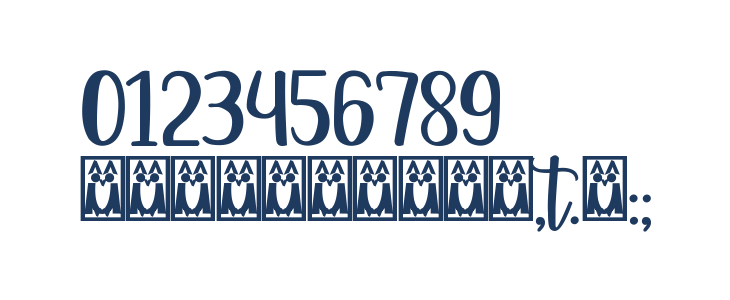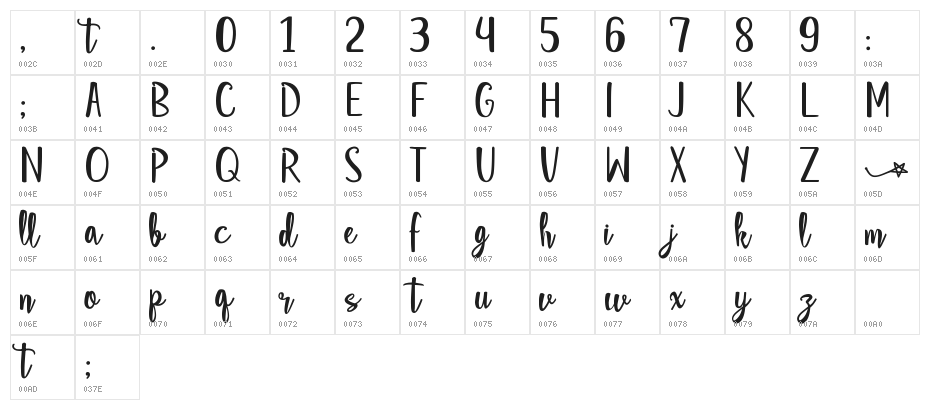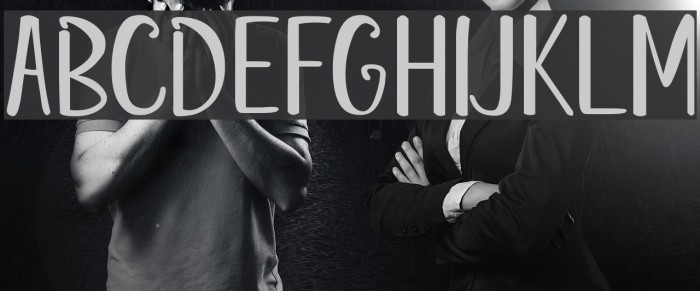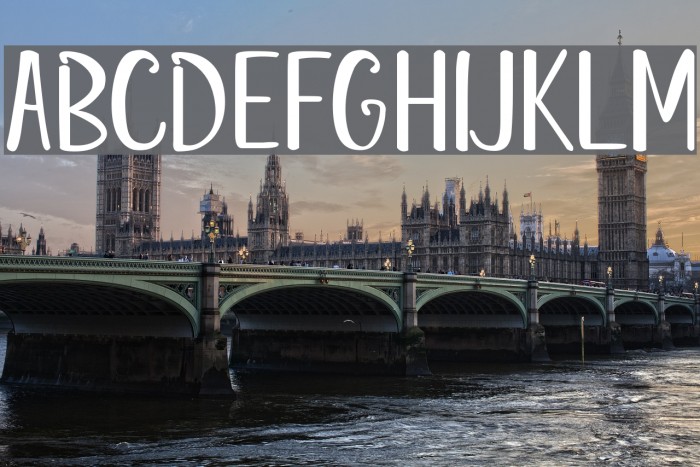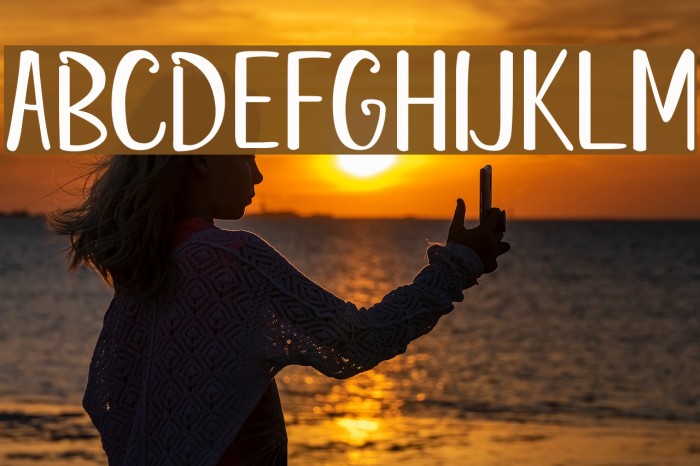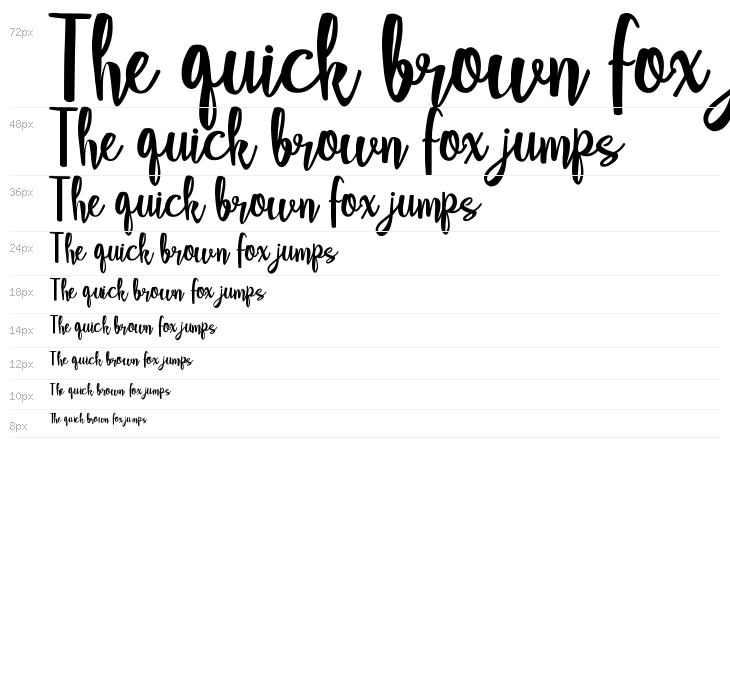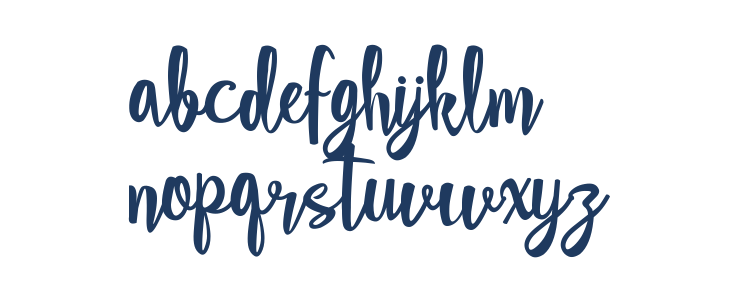
Star Strella Font
Star Strella Description
This font features a playful and bold style with a mix of uppercase and lowercase letters that exhibit a handwritten, casual appearance. The uppercase letters are tall and slightly narrow, with rounded edges that add a friendly touch. The lowercase letters have a more cursive and flowing style, providing a dynamic contrast to the uppercase set. The numbers are consistent with the uppercase letters, maintaining the bold and rounded characteristics. Special characters are included, adding versatility to the font's use. Overall, the font combines elements of both script and display styles, making it suitable for creative and informal applications.
STAR-STRELLA UPPERCASE
STAR-STRELLA LOWERCASE
STAR-STRELLA OTHER CHARS
| Overall Style | Playful, Creative |
| Proposed Projects | Ideal for greeting cards, playful branding, children's books, and creative posters. |